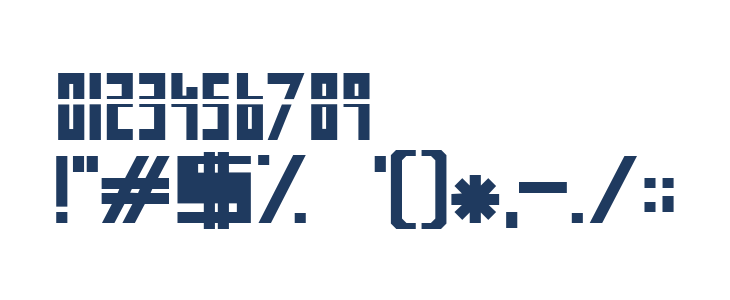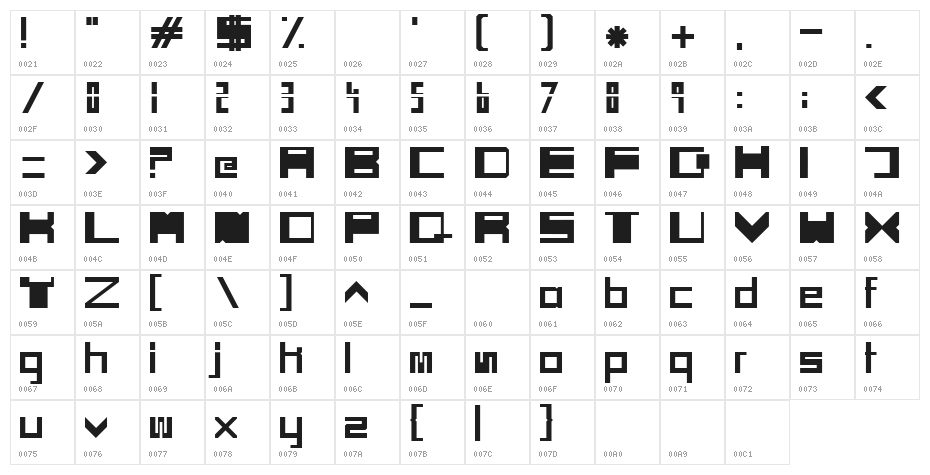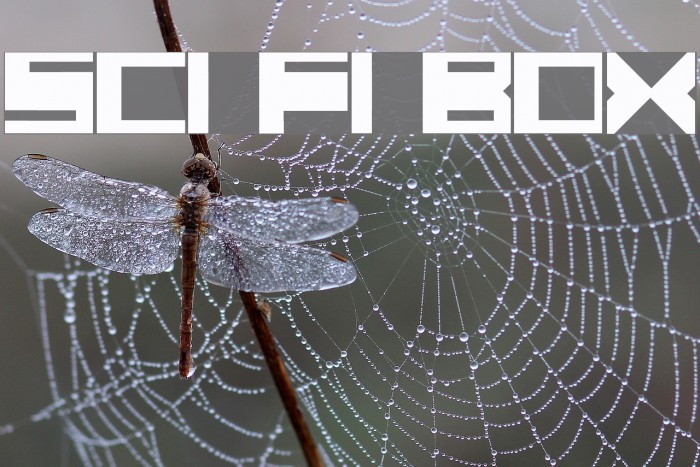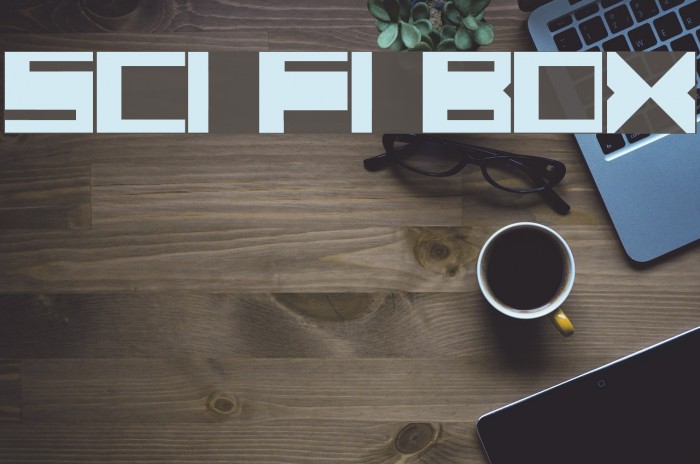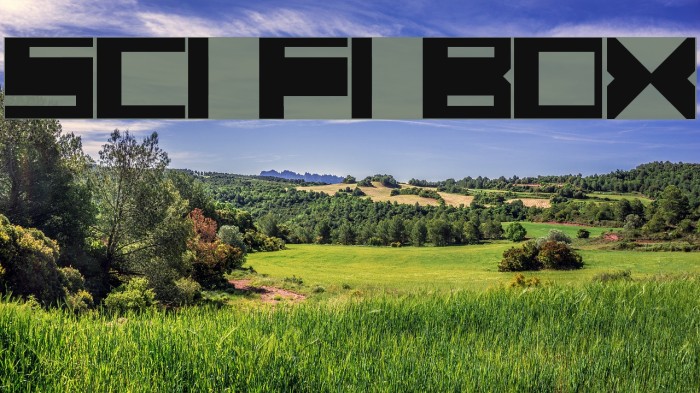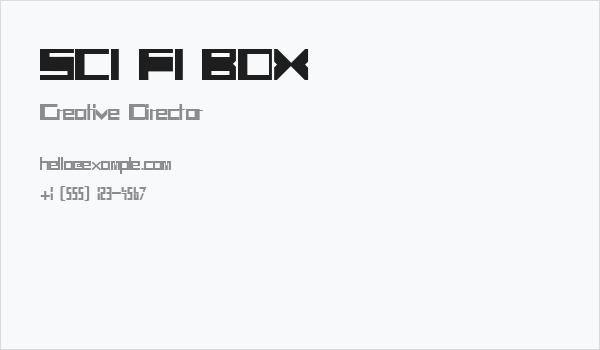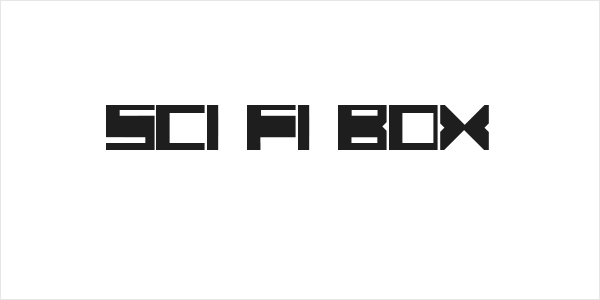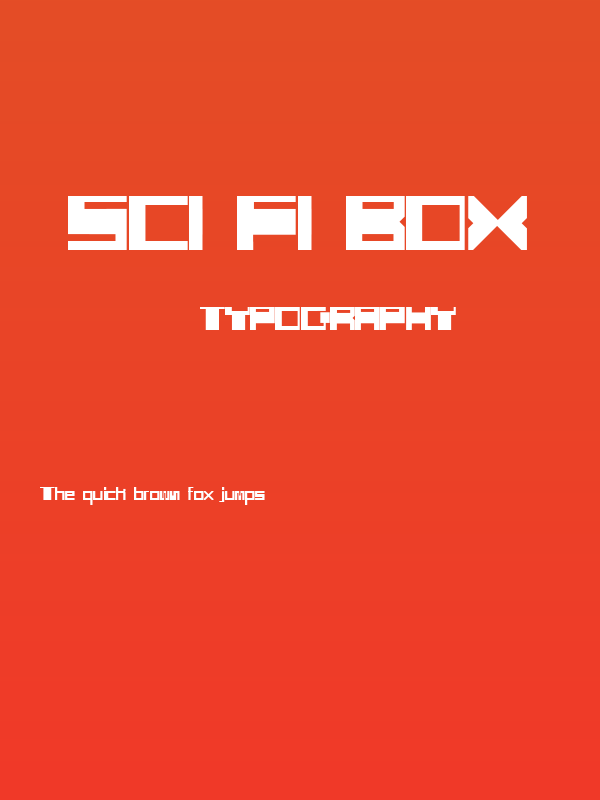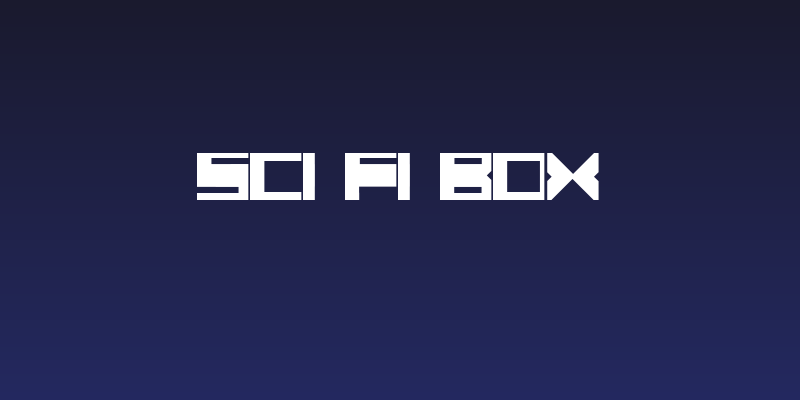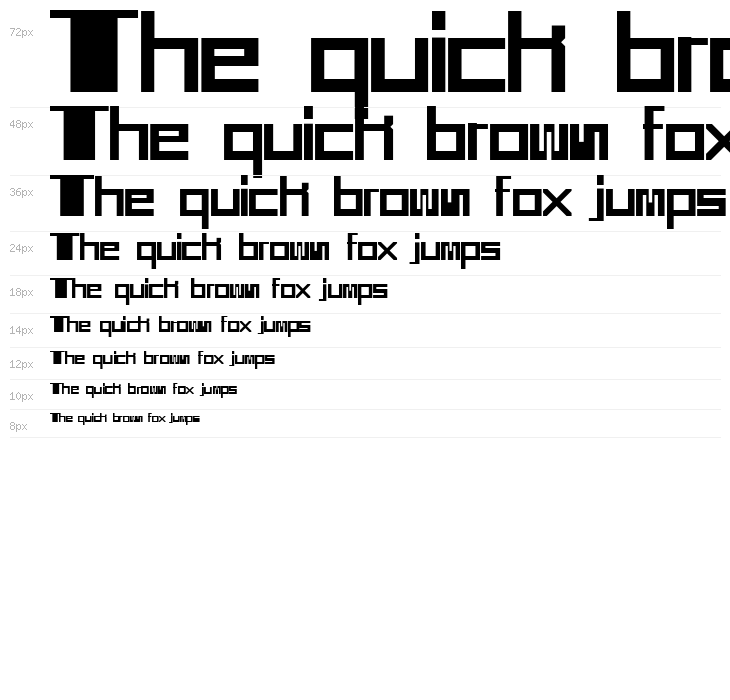
SCI FI BOX Font
SCI FI BOX Description
This font features a bold and futuristic design, characterized by its geometric and blocky letterforms. The uppercase and lowercase letters share a consistent style, with sharp angles and a uniform thickness that gives it a strong, impactful presence. The numbers and special characters follow the same design principles, ensuring a cohesive look across all text elements. Its distinct sci-fi aesthetic makes it ideal for projects that require a modern and technological feel. The font's structure is clean and precise, with a focus on symmetry and balance, making it suitable for digital and print media.
| Proposed Projects | Ideal for sci-fi movie posters, video game titles, tech branding, and futuristic-themed websites. |